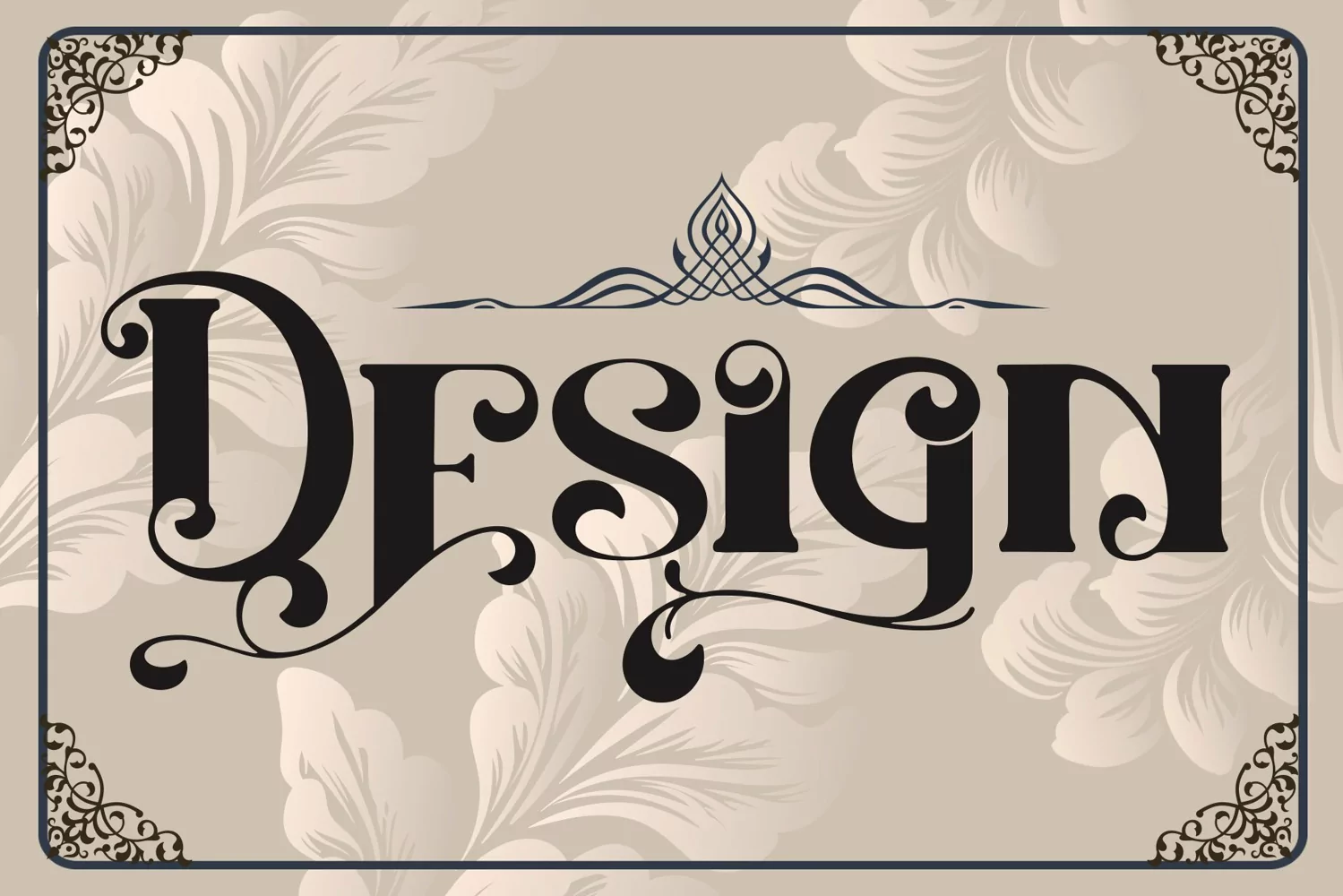
Karlburns
This pair was inspired by unique t-shirt design that i saw on some store, It was crafted by hand specially to add natural handmade feeling in its brand identity than i make it clean with pentool.
If you need a decorative serif font style, Karlburns font is great choice for you to make your design authentic and unique.
Karlburns font has 201 character set included Karlburns Font is very good looking in logo, movie poster design, youtube tumbnail, labels, product packaging, invitations, advertising and others.